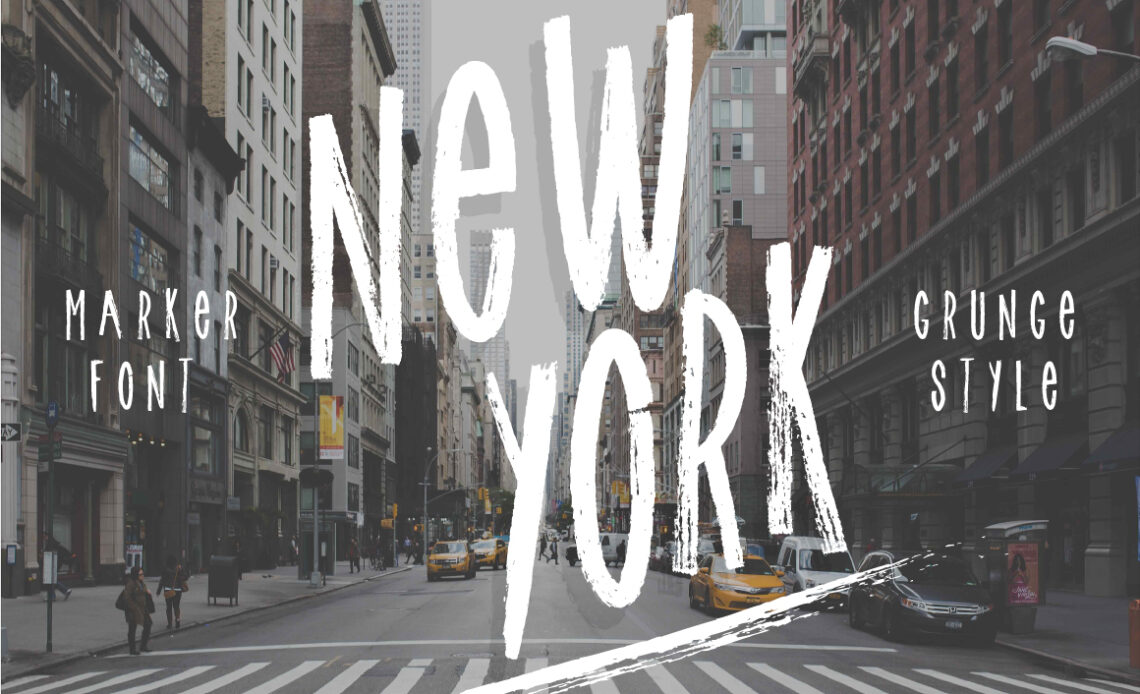
Dive into the world of rustic charm with New York Font, a captivating display font that exudes an authentic hand-crafted feel. Inspired by the bustling energy of New York City, this font embodies the perfect blend of urban grit and timeless elegance. Let your designs radiate with a touch of individuality and charm as you embrace the beauty of New York Font.
With its distinct grunge style, New York Font is not just a font; it's an experience. Each character carries the weight of history, embodying the spirit of New York's iconic streets and vibrant culture. Whether you're crafting logos, social media graphics, invitations, or merchandise, New York Font adds a captivating touch that demands attention.
Unleash your creativity and let New York Font take your designs to new heights. Its versatility knows no bounds, making it the perfect choice for a wide range of projects. From branding and apparel to posters and signage, New York Font effortlessly elevates your message, leaving a lasting impression on your audience.
Join the creative revolution and embrace the power of New York Font. Transform your designs into captivating masterpieces that resonate with your audience. Let New York Font be your creative companion, guiding you towards a world of boundless possibilities.